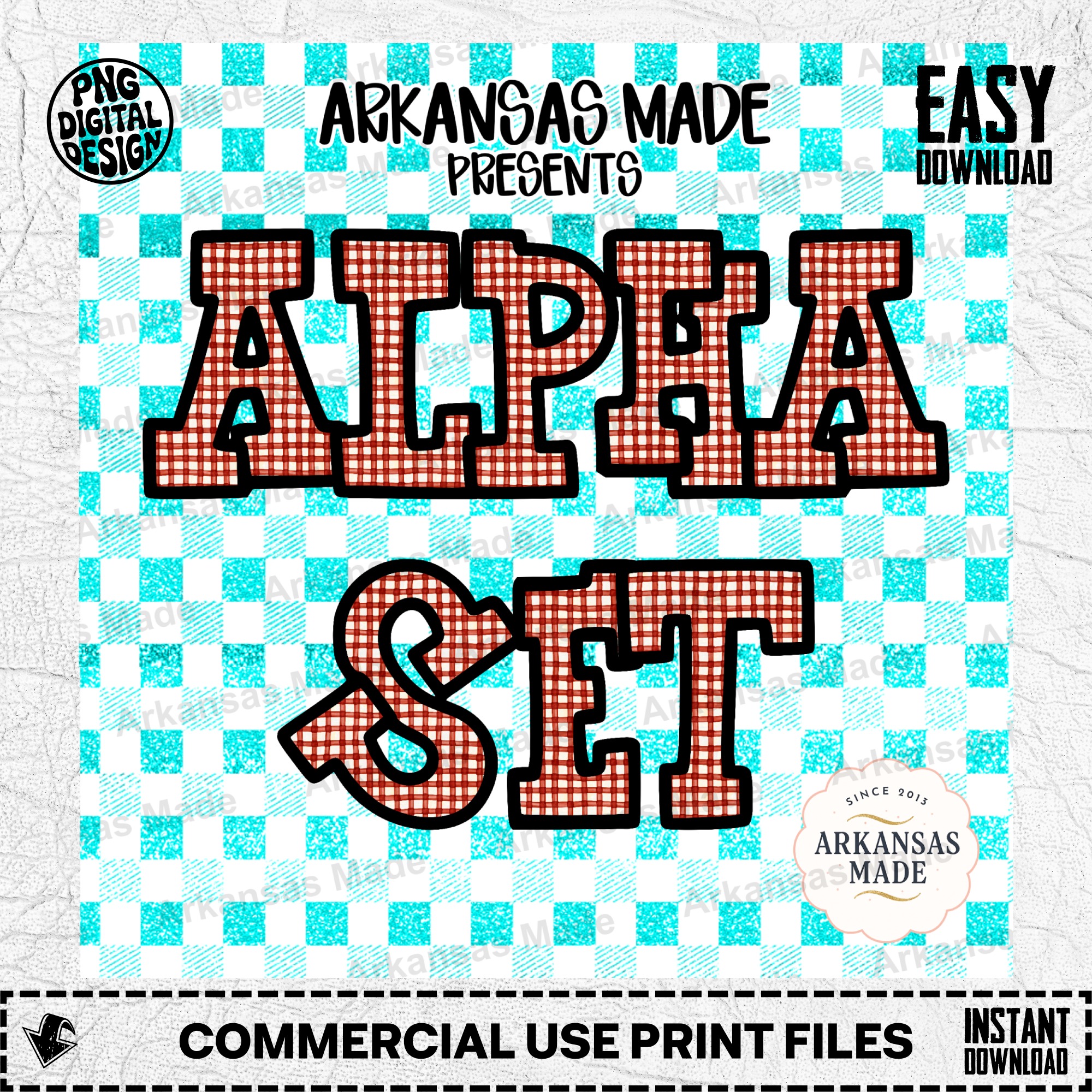
Elevate your designs with this charming Red Plaid Alpha PNG Set, featuring distressed gingham letters perfect for rustic and farmhouse projects. This versatile digital alphabet bundle is ideal for crafters. Each letter boasts a unique hand-drawn, chunky outline effect, adding a cozy, handcrafted touch to any creation. Perfect for DIY enthusiasts, small business owners, and sorority sisters creating personalized gifts, custom apparel, or unique home decor. A thoughtful gift for crafters, teachers, or anyone who loves country-style aesthetics.